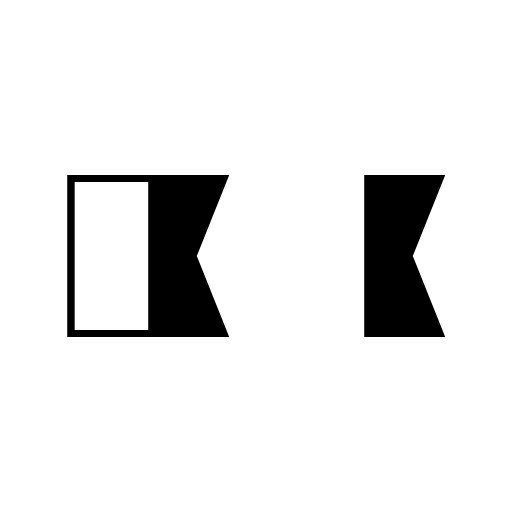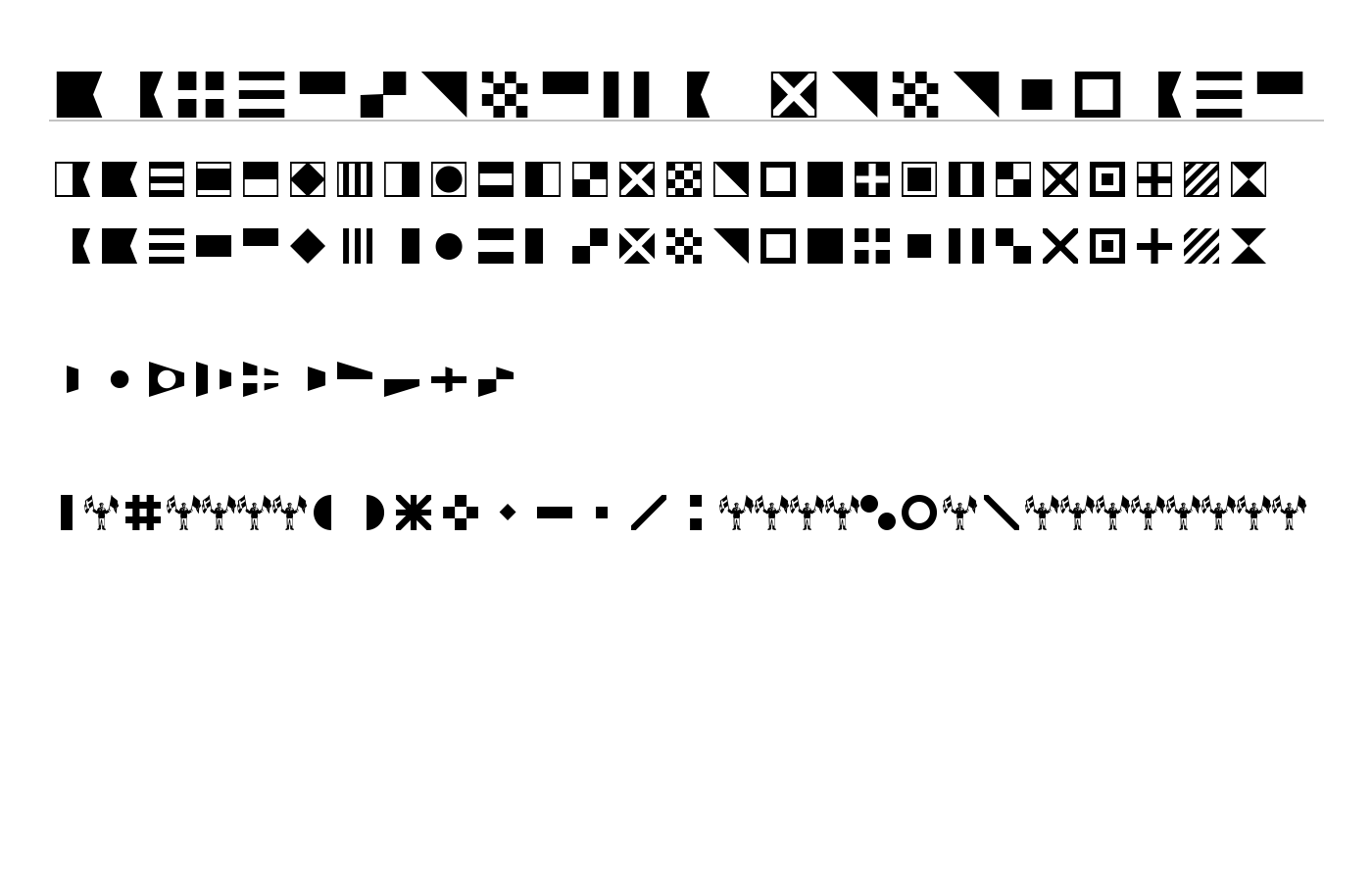
Barceloneta Monospace is a bold, geometric display font with a unique, blocky style that prioritizes uniform spacing and heavy, solid shapes. Its monospaced design and modular forms give it a tech-inspired, retro-futuristic vibe, making it ideal for creative headlines, digital art, and projects seeking a distinctive, modern aesthetic. This font works best where attention-grabbing, unconventional typography is needed to convey innovation and playfulness.
Barceloneta Monospace Font
About Barceloneta Monospace Font